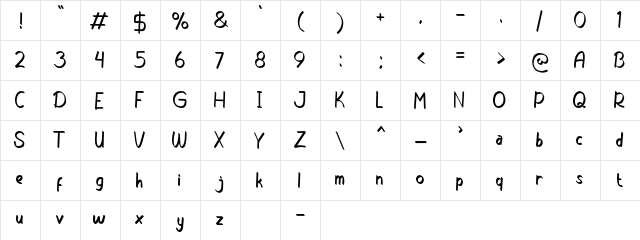
Khilafah Regular
Design Context for Khilafah Typeface
Khilafah is a composed and adaptable typeface that performs quietly and consistently across a wide range of design contexts.